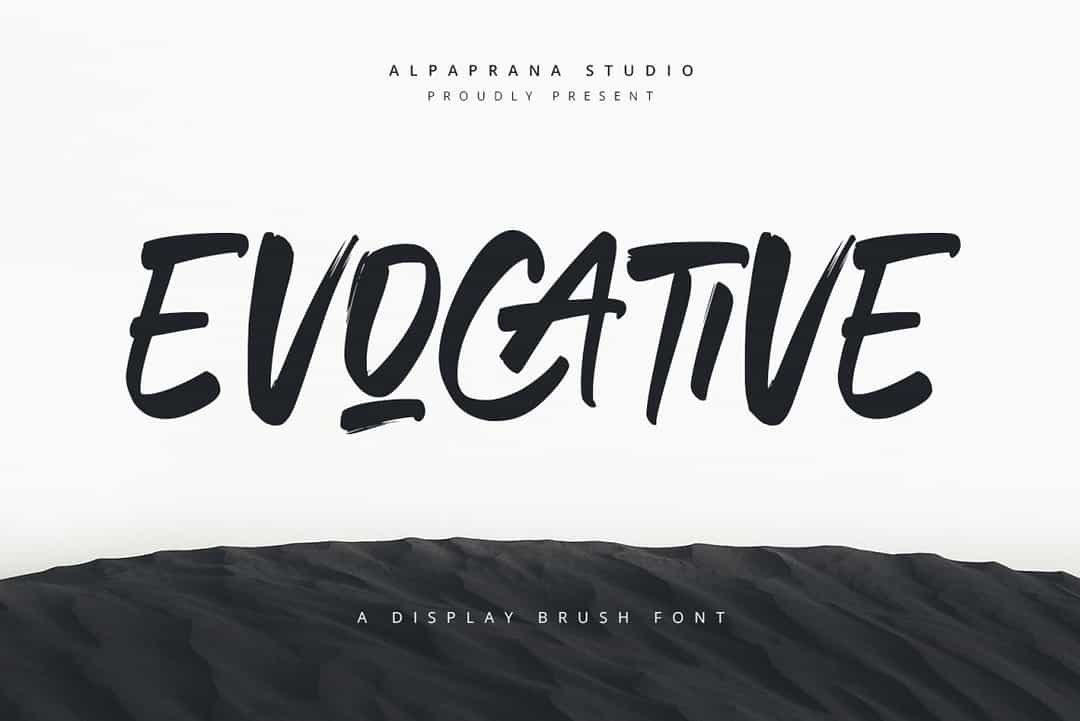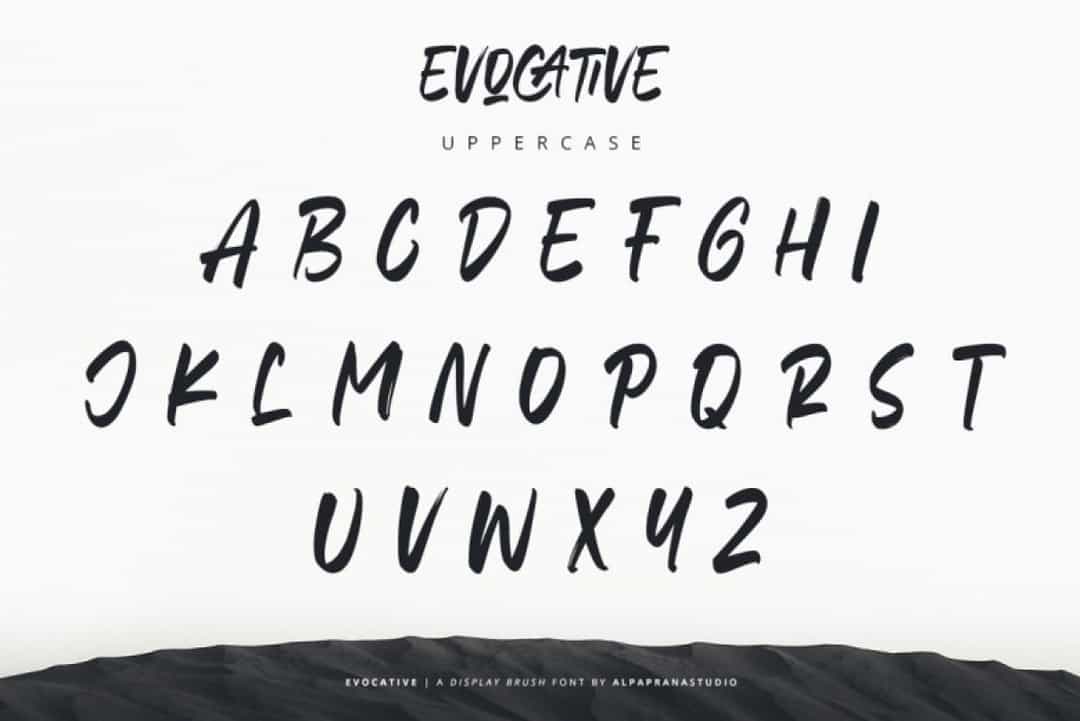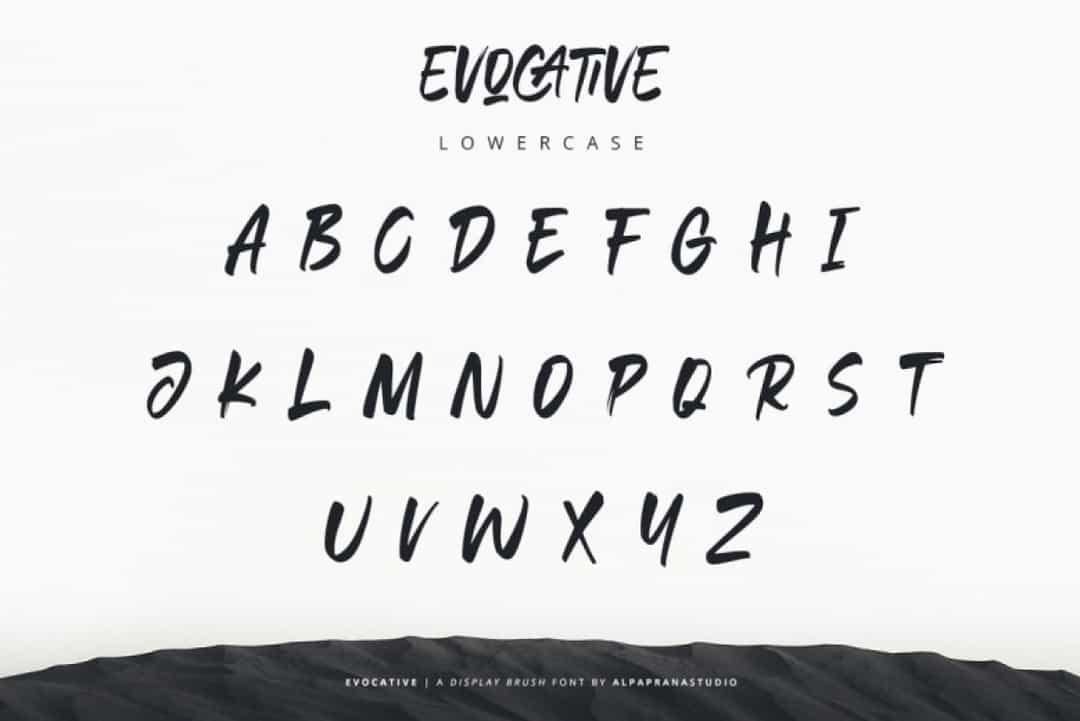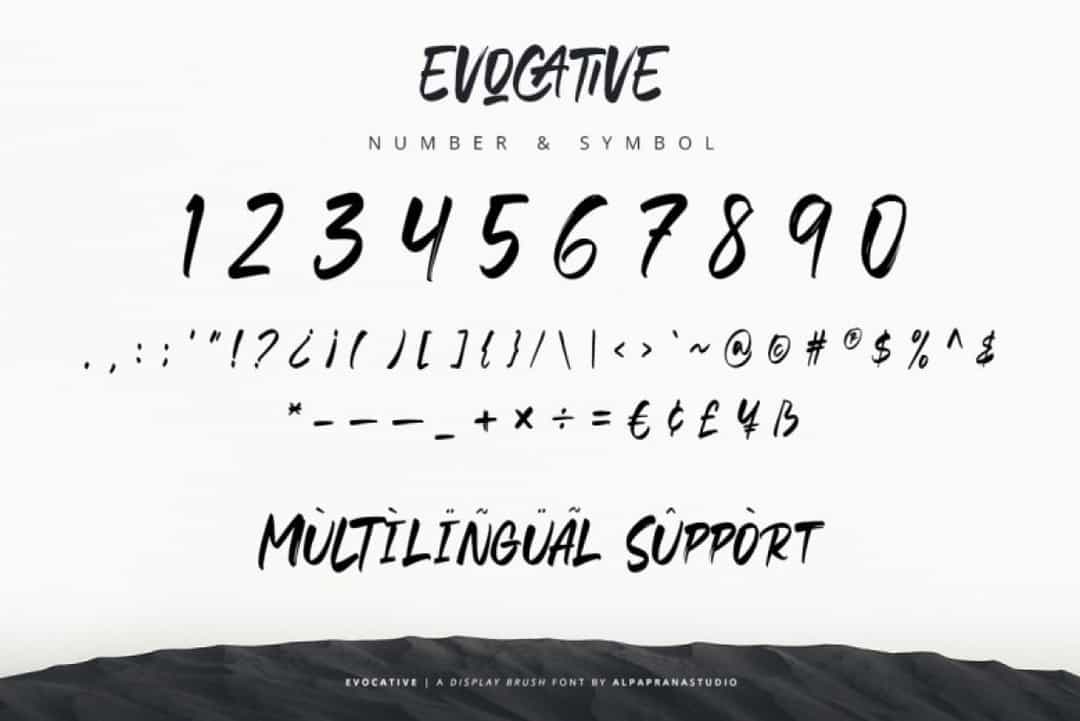
Discover Evocative Font, part of the Brush collection—a versatile and unique font perfect for adding a personal touch to your projects. Download it for free and enjoy crafting designs with style, from invitations to social media posts. This font is available exclusively for personal use, giving you the freedom to create without limits. Unlock your creativity with Evocative Font today!
Evocative is an elegant brush-style font with modern and natural characteristics, ideal for branding, logo Design, clothing logotypes, Posters and T-Shirts among many other projects in design. Perfect for branding logo Design as well as letter logotypes clothing logotypes Poster posters shopping bags posters T-Shirts photography special events posters book covers photography special event or any other creative designs projects in general.